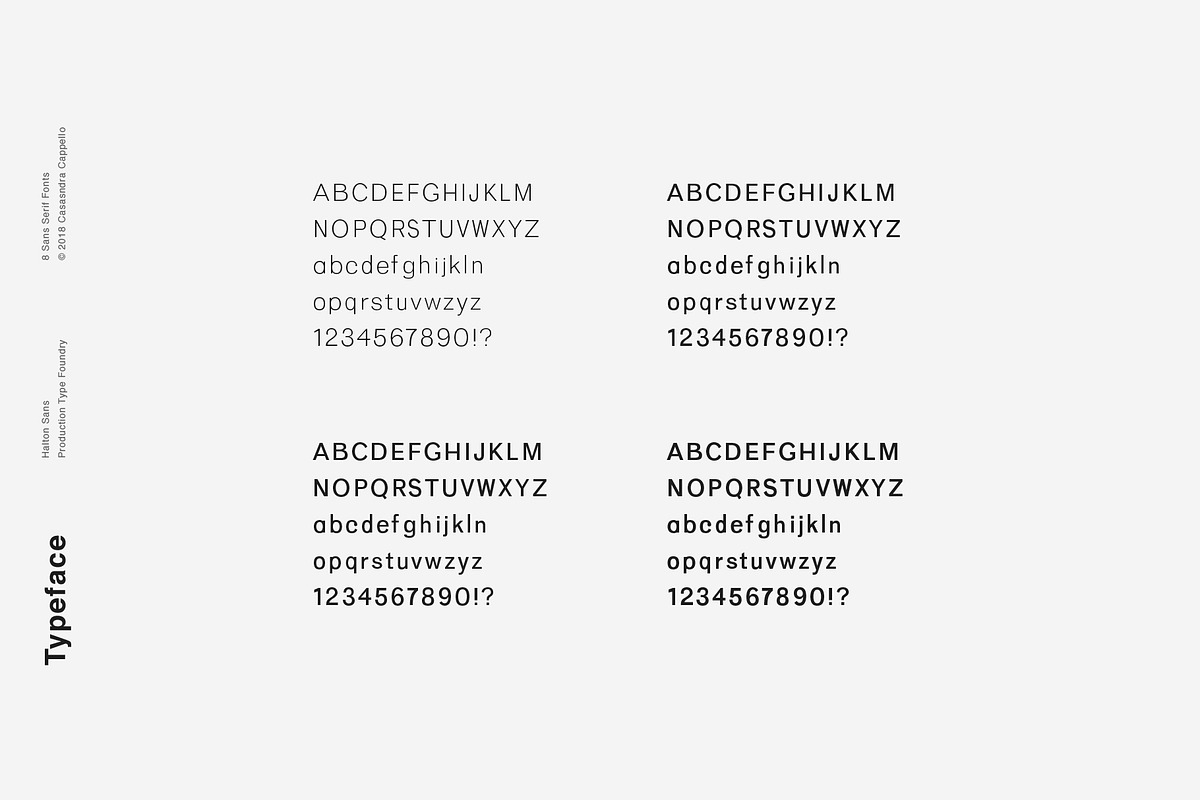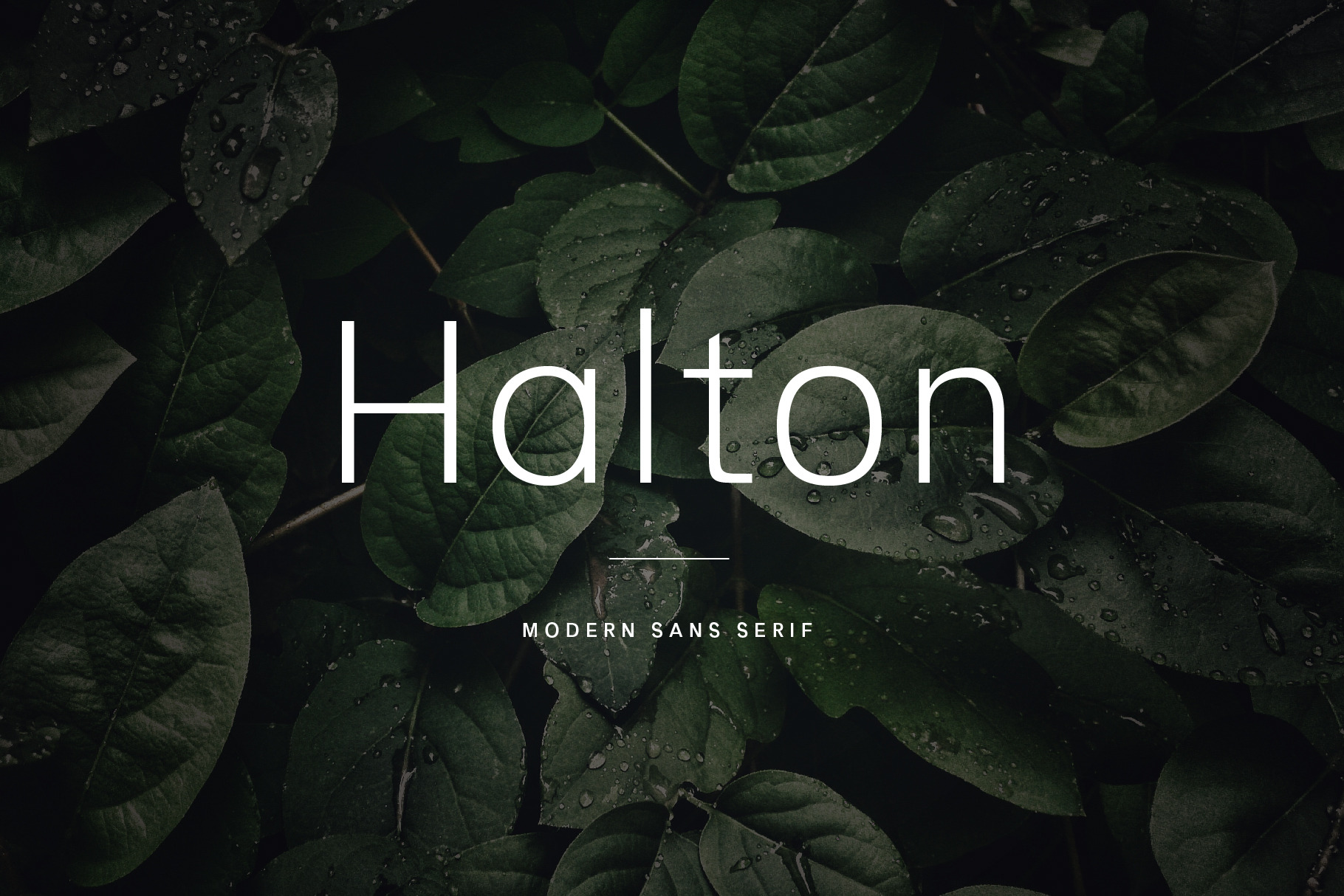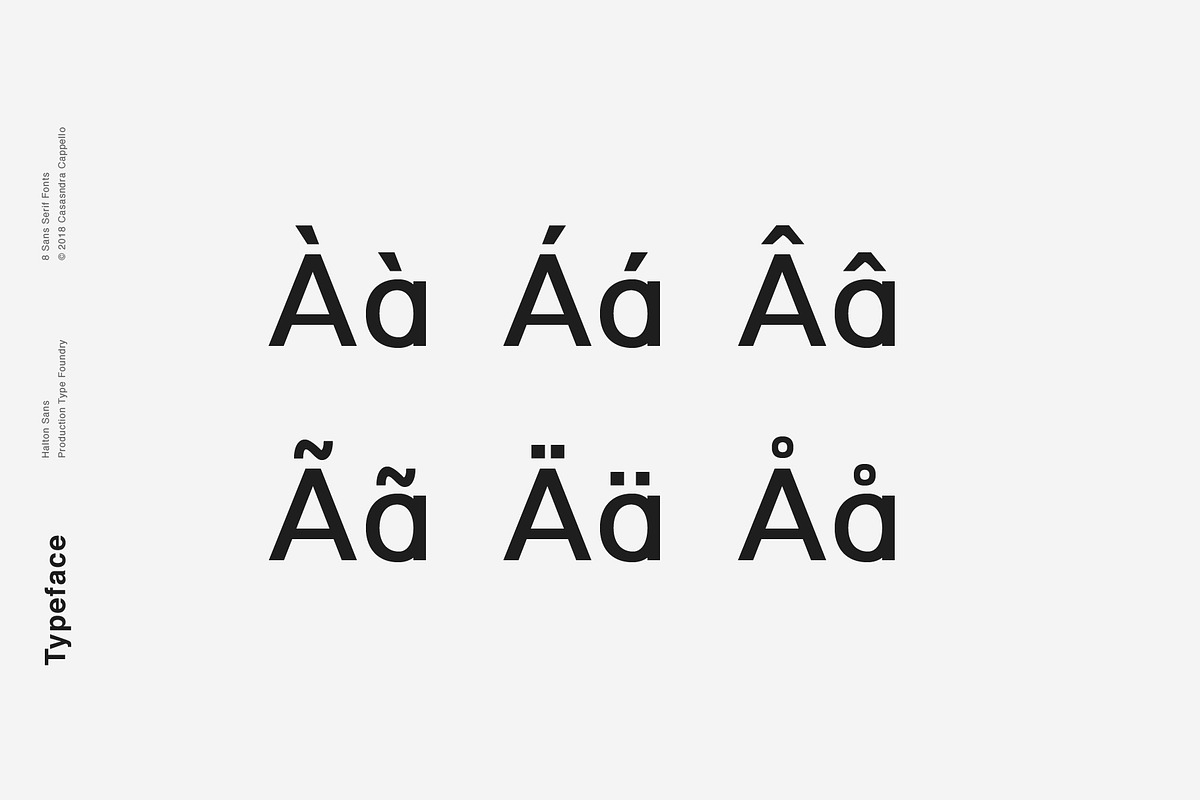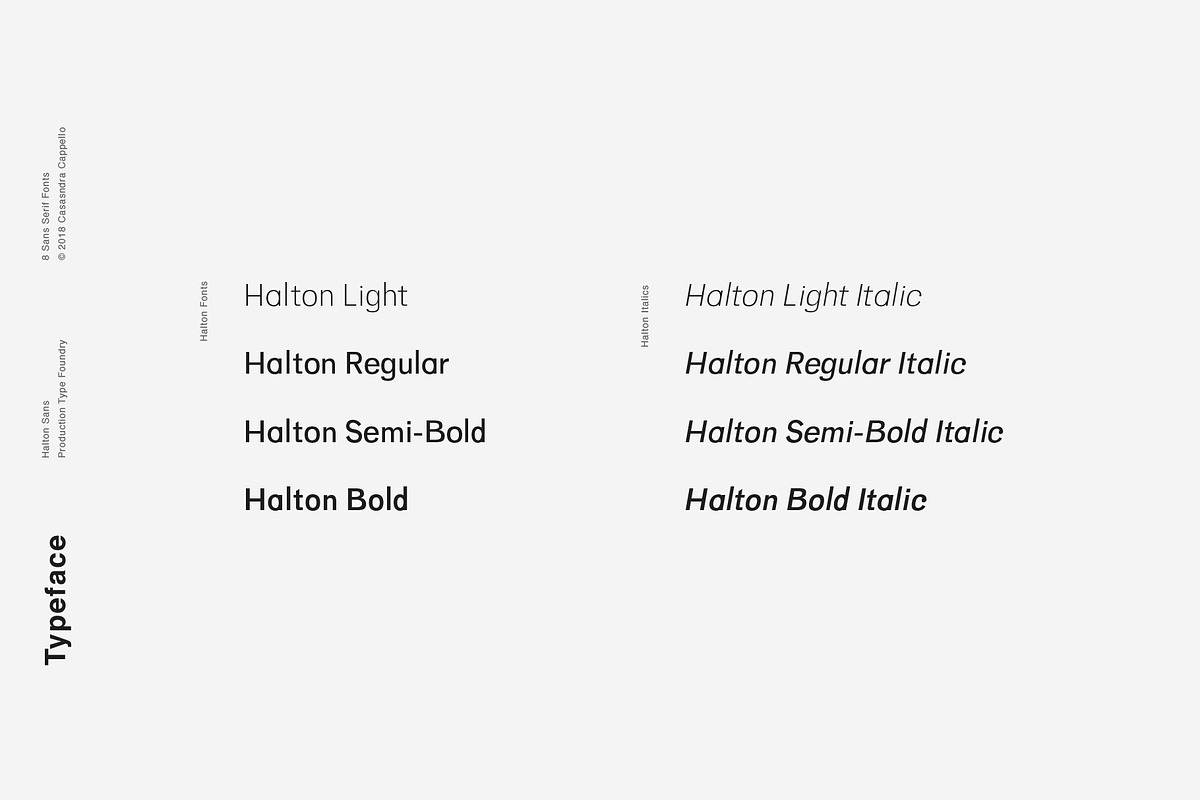
Halton - Modern Sans Serif Typeface
Halton is a minimal and slightly condensed sans serif typeface. It has a little bit of personality and can be used for both headers and body copy. This font family includes all Latin characters (including accents), numbers, special characters, and punctuation.
Halton includes eight fonts in OTF format: Four weights and four italics.